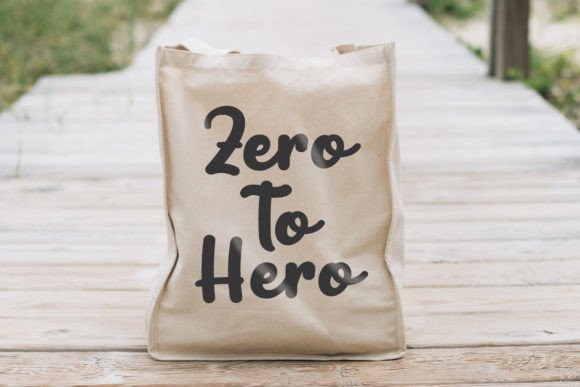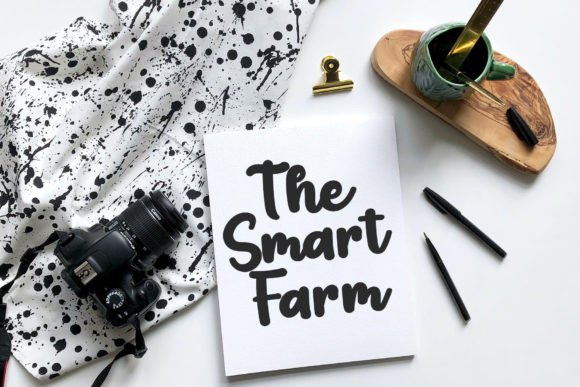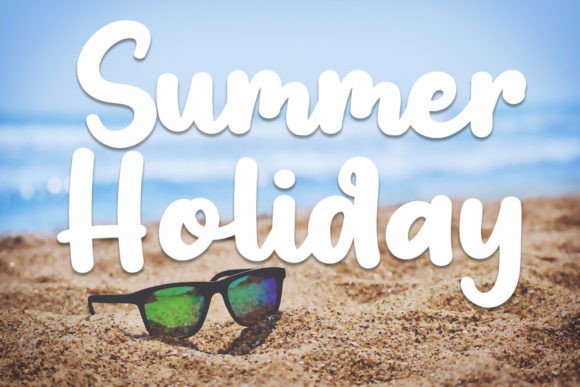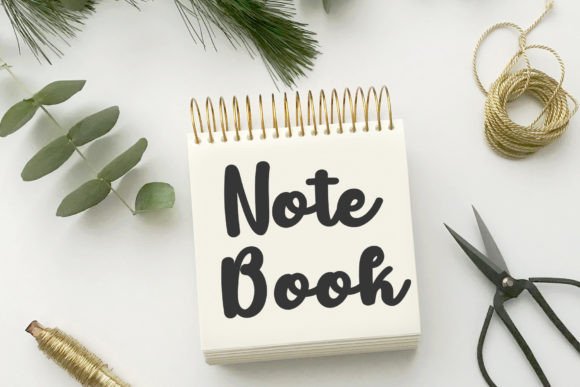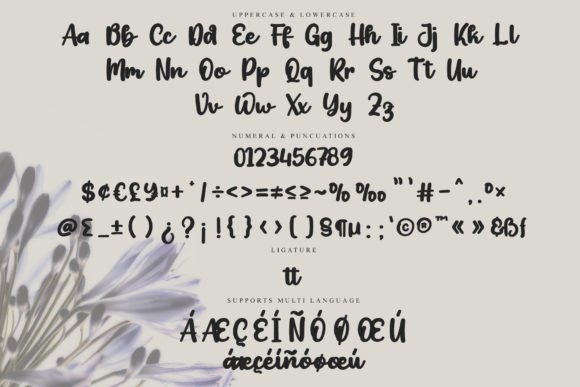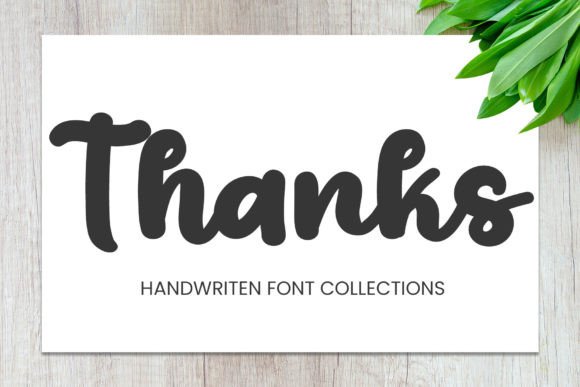
Wiggle Font
About Wiggle Font
“Wiggle” is more than just a font; it’s a playful and stylish typeface with a youthful spirit. Designed to be versatile, it is suitable for a wide range of projects, from professional-looking designs such as branding, labels, websites, and business cards to more casual and creative endeavors like packaging, posters, flyers, quotes, social media posts, invitations, special occasions cards, and more.
The playful and stylish qualities of “Wiggle” are immediately apparent in its design. Each letter carries a sense of energy and flair, contributing to an overall aesthetic that is both fun and modern. This makes it an ideal choice for projects that demand a touch of youthful spirit and style.
The versatility of “Wiggle” becomes evident in its adaptability to various design contexts. Whether used to create a professional brand identity or to add a playful touch to social media posts, this font confidently fits into a diverse range of creative projects.
Imagine it in packaging, where “Wiggle” can bring a dynamic and stylish element to product labels. Picture it in posters or casual invitations, creating a visually engaging and fun atmosphere. “Wiggle” becomes a font that not only looks playful and stylish but also adds a youthful and vibrant energy to your designs.
In summary, “Wiggle” is not just a font; it’s a design asset that brings a playful and stylish touch with a youthful spirit to your creative projects. Let it be the choice for adding flair and modernity to your branding, posters, and more. With “Wiggle,” every project becomes an opportunity to showcase the beauty of typography with a dynamic and youthful twist.